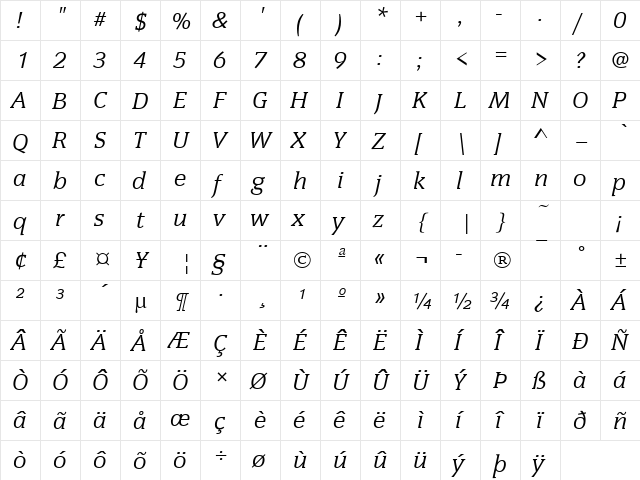
CongressT Italic Font Preview
CongressT Italic
CongressT Italic Font Details
Design Context for CongressT Typeface
CongressT offers clean, dependable letterforms without strong stylistic allegiance, making it a practical choice for designers who need flexibility. The slanted form adds forward momentum and visual energy.
Pro Tip: Use CongressT for emphasis, pull quotes, and subheadings where its slanted energy can add rhythm to the layout.